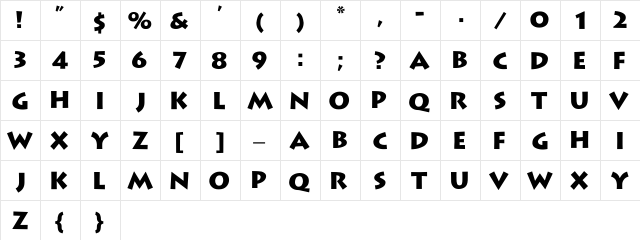
Large Rock Regular
Design Context for Large Rock Typeface
Large Rock offers clean, dependable letterforms without strong stylistic allegiance, making it a practical choice for designers who need flexibility.
Pro Tip: Pair Large Rock with a font of contrasting weight or personality to build a more expressive typographic hierarchy.